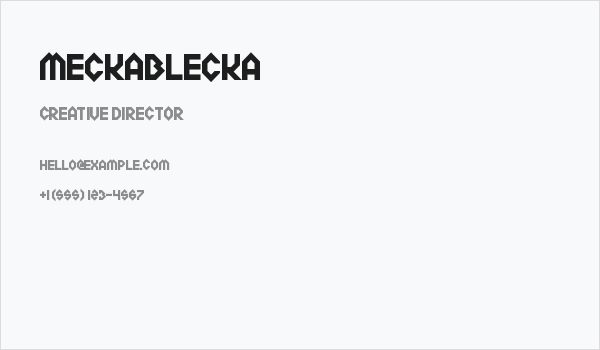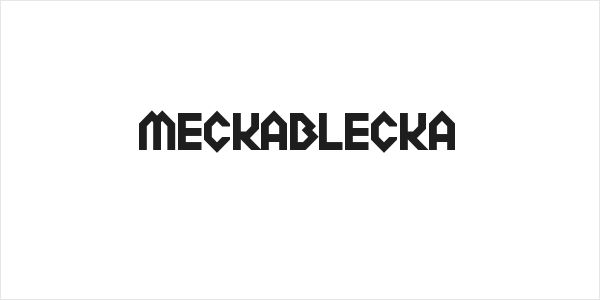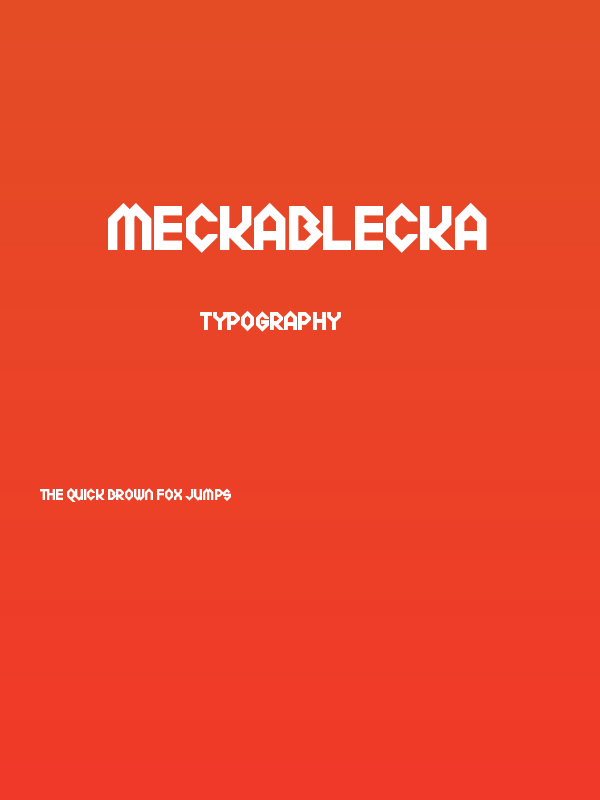
Meckablecka Font
Meckablecka Description
This font features a bold and geometric design, characterized by sharp angles and a blocky structure. The letters are constructed with a consistent thickness, giving them a strong and impactful appearance. The angular cuts and edges create a modern and edgy feel, making it stand out in any design. The uniformity in stroke width across all characters ensures a cohesive look, while the unique shapes of each letter add a distinctive touch. This font is ideal for projects that require a bold statement and a contemporary aesthetic.
| Proposed Projects | Ideal for branding, posters, headlines, and any design that requires a strong visual impact. |